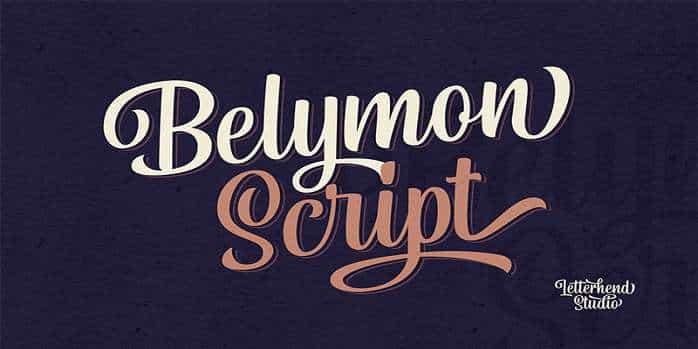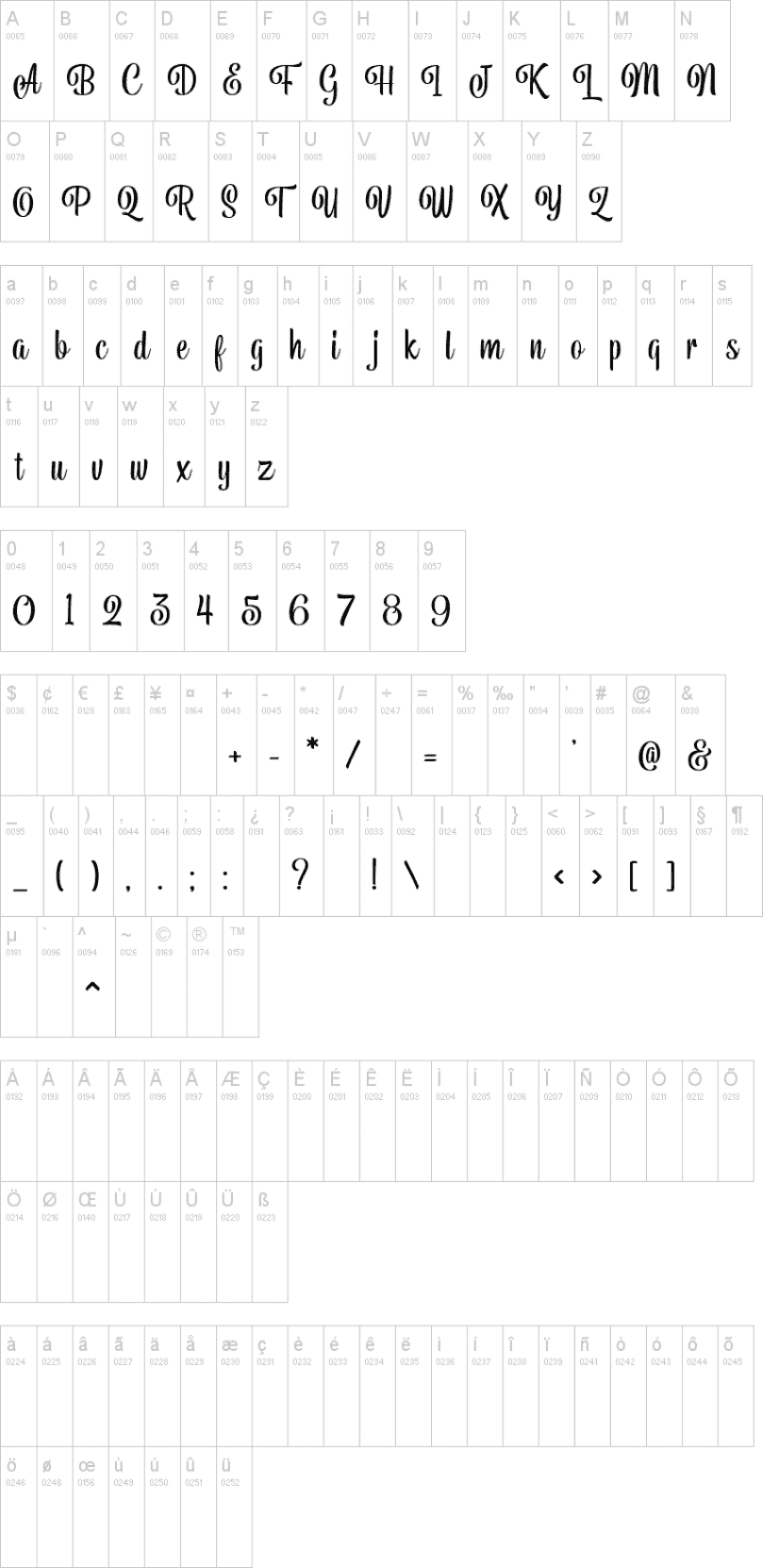
Introducing, Belymon Script. Belymon script is a unique and elegant script with quite traditional appeal and very easy to read at first sight. Ideal for you who require a typeface for particularly logotype, apparel, invitation, branding, packaging, advertising etc. The distinctive feature of this script is stylistic set for each character up to six sets!